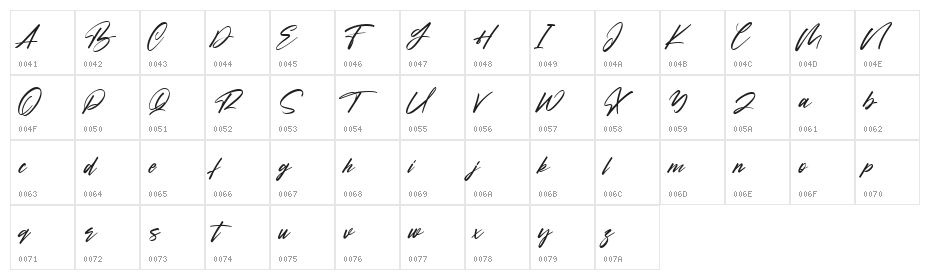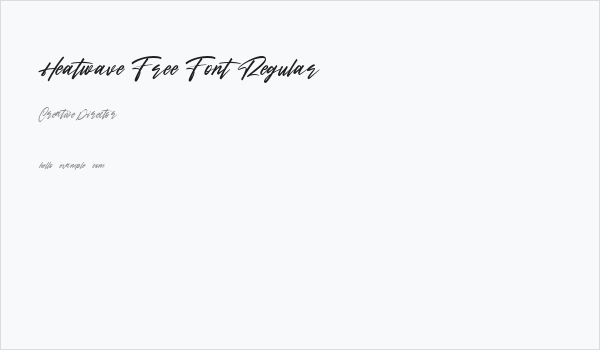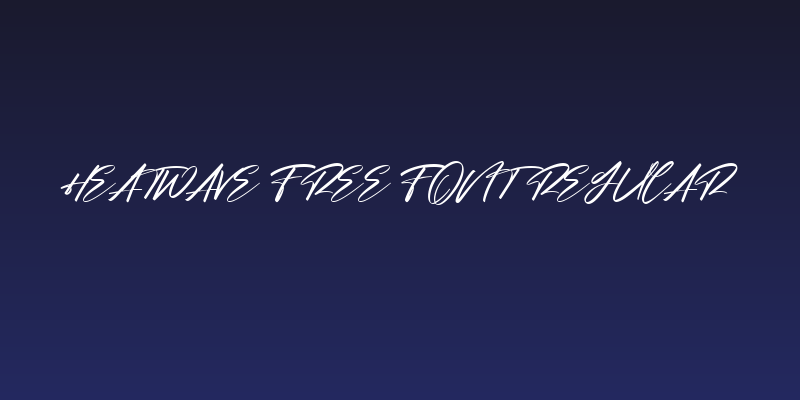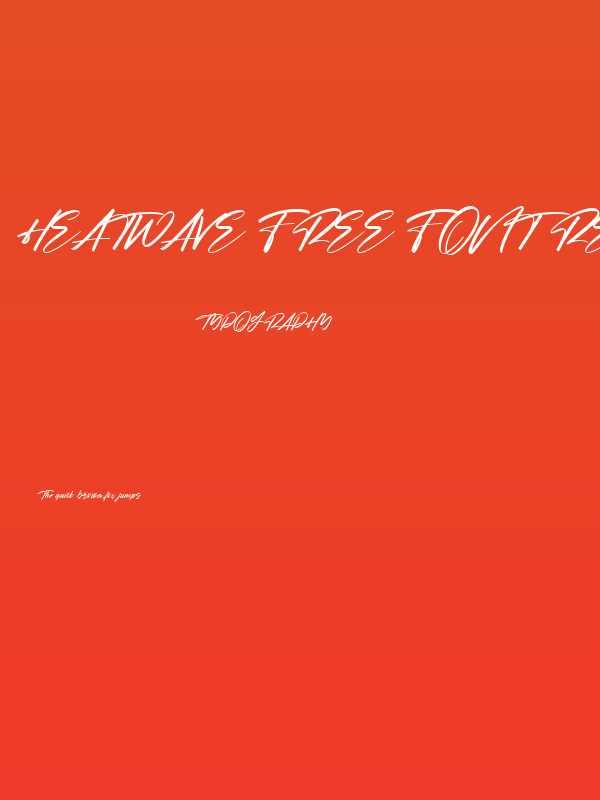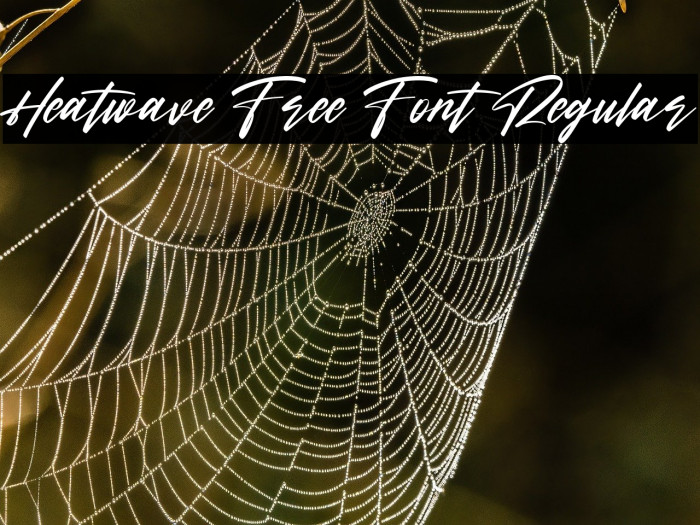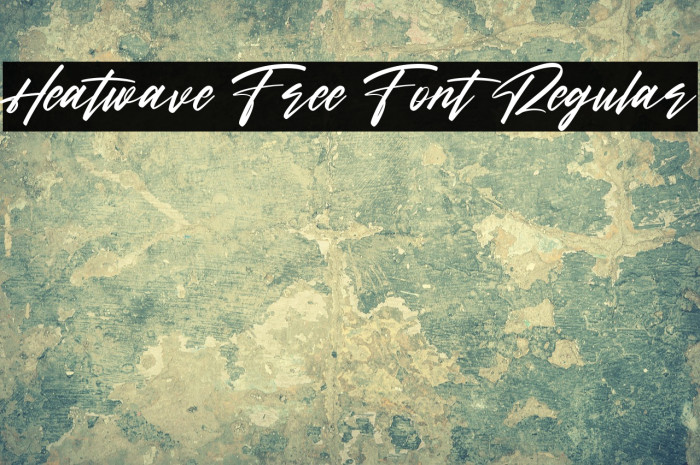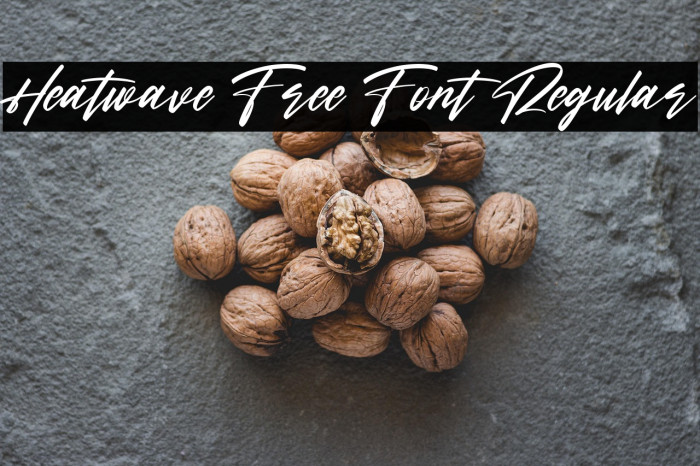
Heatwave Free Font Regular Font
Heatwave Free Font Regular Description
This font features a dynamic and expressive script style, characterized by its fluid and elegant strokes. The letters are interconnected, creating a sense of movement and flow, reminiscent of handwritten calligraphy. The uppercase letters are bold and sweeping, while the lowercase letters maintain a consistent rhythm and balance. This font exudes a sense of sophistication and creativity, making it ideal for artistic and decorative applications. The overall appearance is both modern and timeless, with a touch of flair that captures attention.
| Proposed Projects | Ideal for wedding invitations, branding, logos, and artistic projects that require a personal touch. |